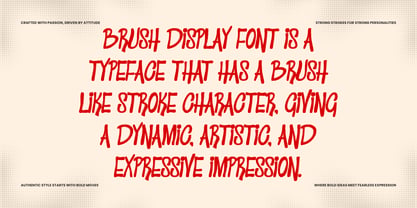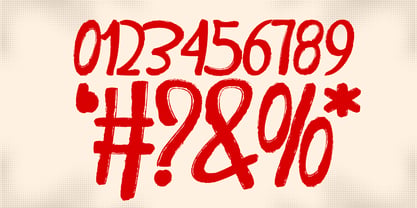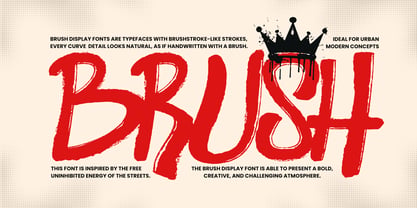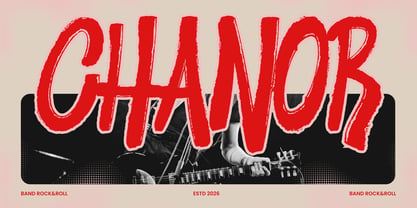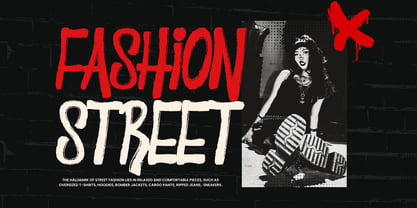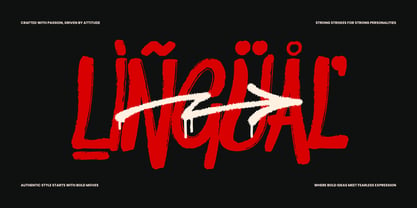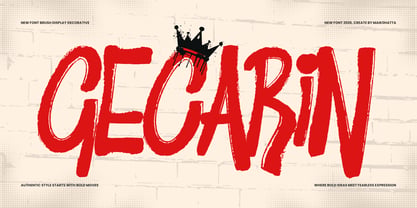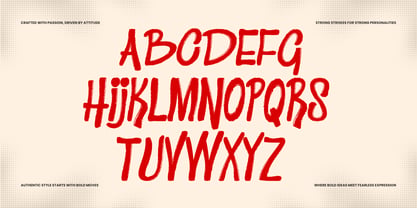
Gecarin
by Maikohatta
The Gecarin Font Family was designed by Gilang Ternadho and published by Maikohatta. Gecarin contains 1 styles. More about this family
Introducing our new product Gecarin – Bold Brush Display Font Gecarin is a bold and expressive brush display font designed to deliver powerful visual impact. Featuring dynamic strokes and authentic hand-painted textures, this typeface captures the raw energy of urban art and fearless creativity. Every curve feels natural and spontaneous, as if written directly with a brush, giving your designs a strong, personal, and artistic character. Perfect for posters, branding, streetwear designs, album covers, social media graphics, headlines, packaging, quotes, and bold editorial layouts. Its rough edges and energetic flow make it ideal for projects that demand attention and attitude. Whether you're creating modern urban visuals or expressive artistic compositions, Gecarin brings strength, motion, and personality to every word.
Designers: Gilang Ternadho
Foundry: Maikohatta